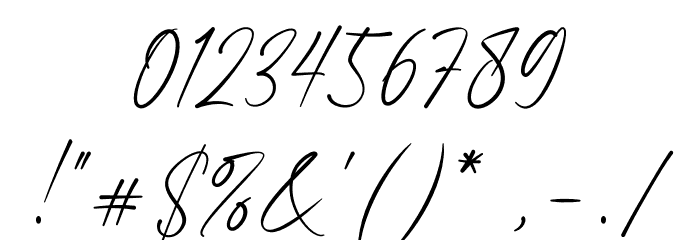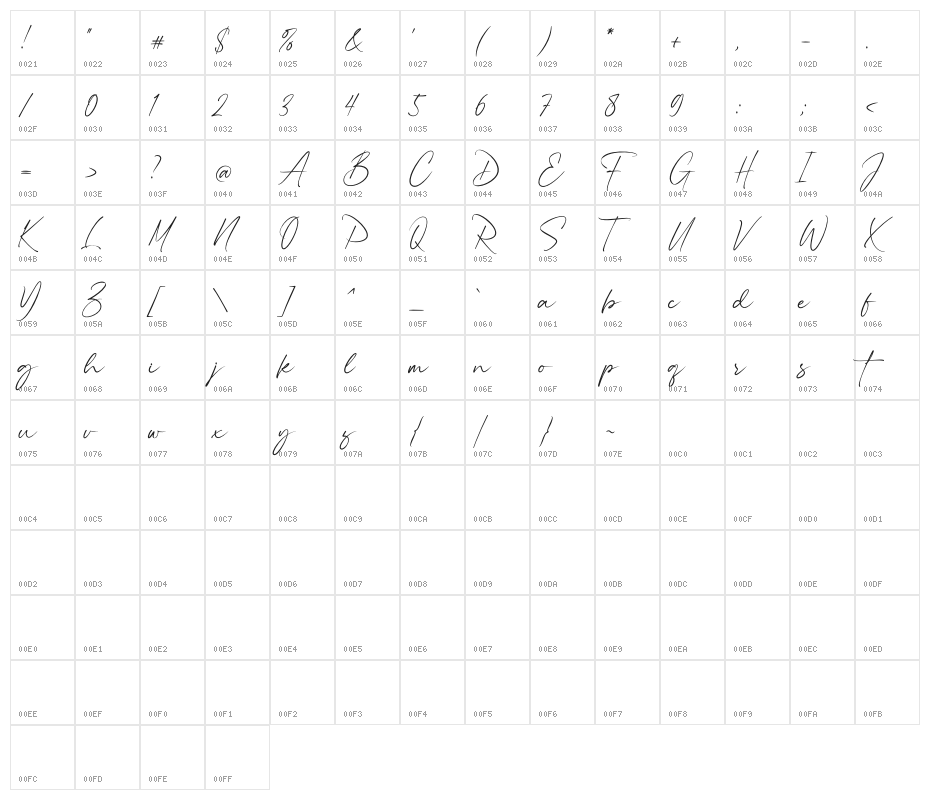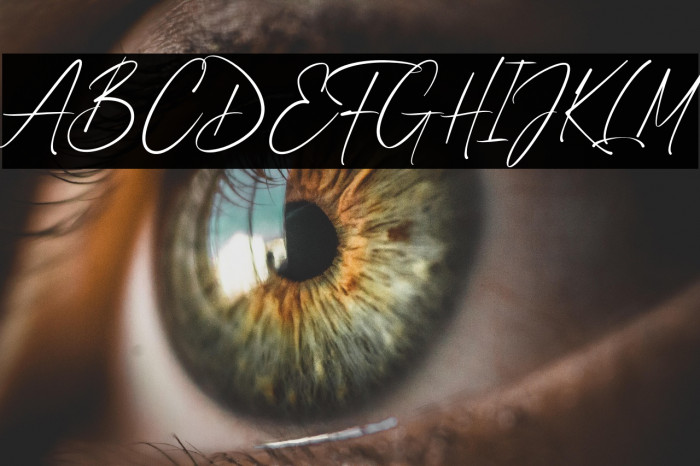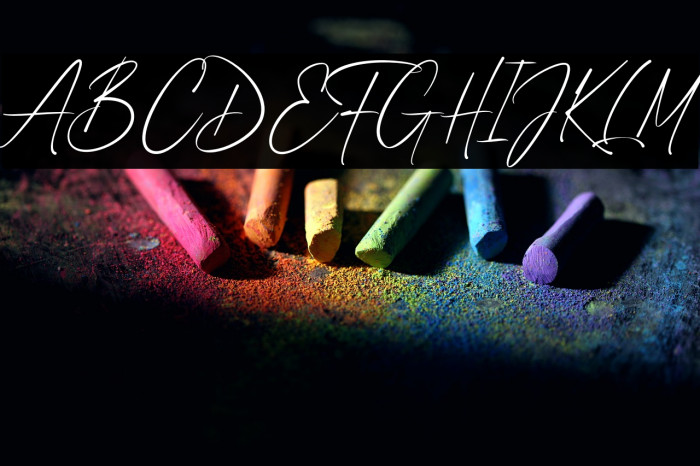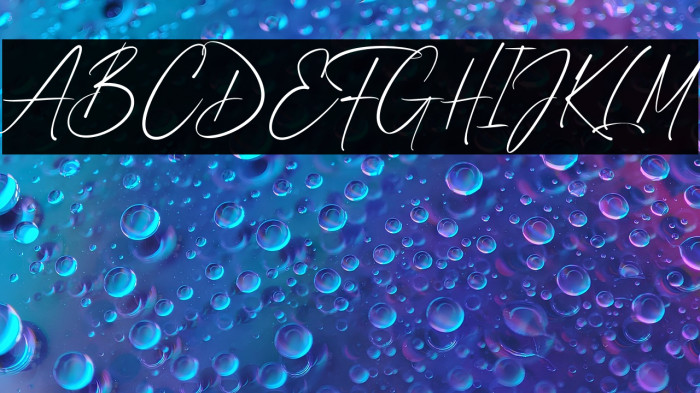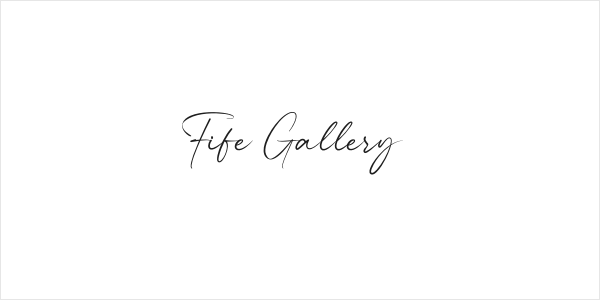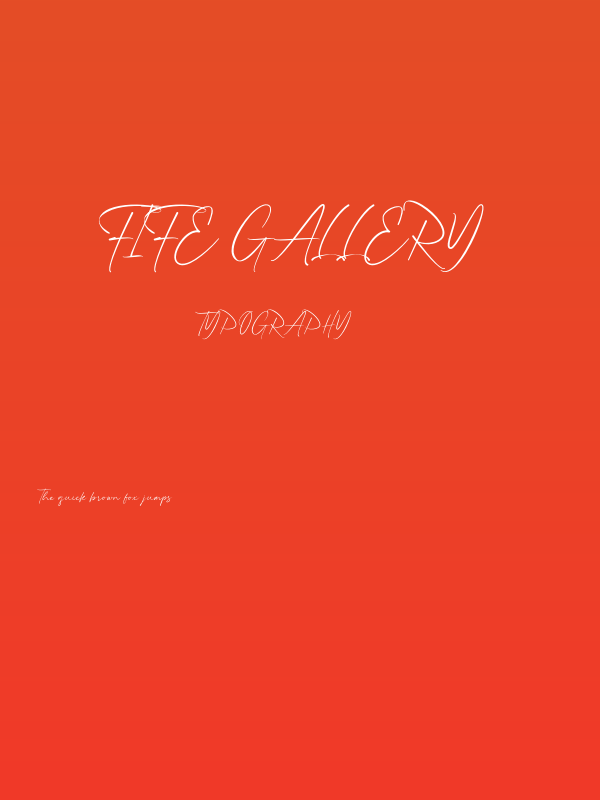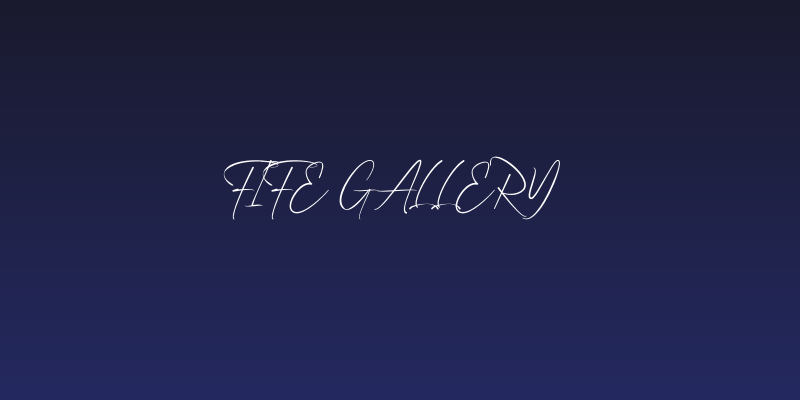
Fife Gallery Font
Fife Gallery Description
This font exudes a sophisticated and elegant handwritten style, characterized by its fluid and graceful strokes. The uppercase letters are tall and slender, with a slight slant that adds a dynamic feel. The lowercase letters maintain a consistent flow, enhancing the script-like appearance. Numbers and special characters are crafted with the same attention to detail, ensuring a cohesive look across all elements. The overall design is both modern and timeless, making it versatile for various applications.
| Overall Style | Elegant, Modern |
| Proposed Projects | Ideal for wedding invitations, branding, greeting cards, and elegant packaging designs. |